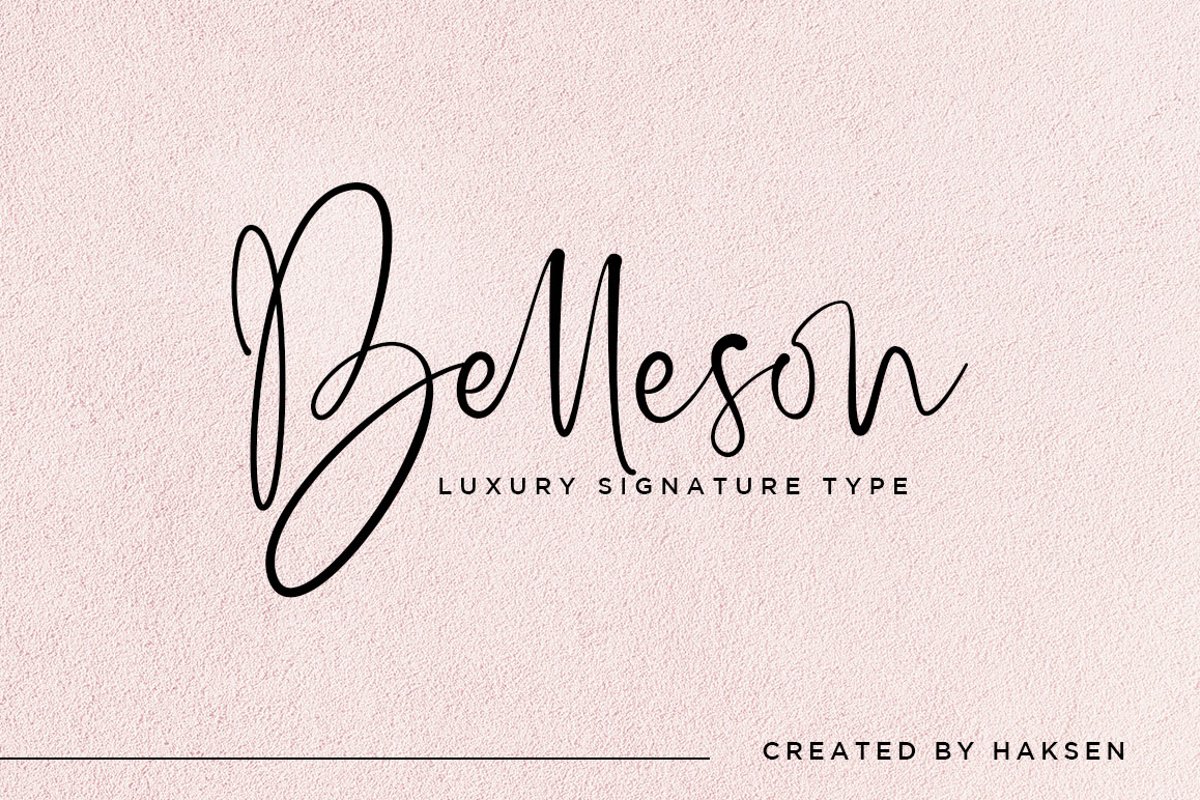
Belleson Luxury Script Type
In this case I will introduce my New Collection Script font with the name “Belleson”
Belleson is a luxury script that designed many character of each font and ligature that will show elegant taste when You use this font.
Belleson can be use in many function for your requirement brands, for logo, blog, website, and all everything that related with letters.
With more than 40 glyps of ligatures in this font, I’m sure You will
more love with this font.
How Belleson will show You like handwritten
and looks natural but elegant in taste.
Ligatures contain of :
al ah at att ett ott itt ff ll tt il it am an ul th ch nt nl oi
ct cl ot ol rr om on oo or ck gh of el ell et st sl ss sh op ee nn ant
all ull oll